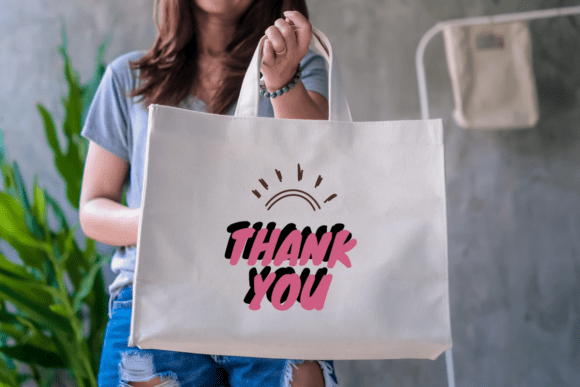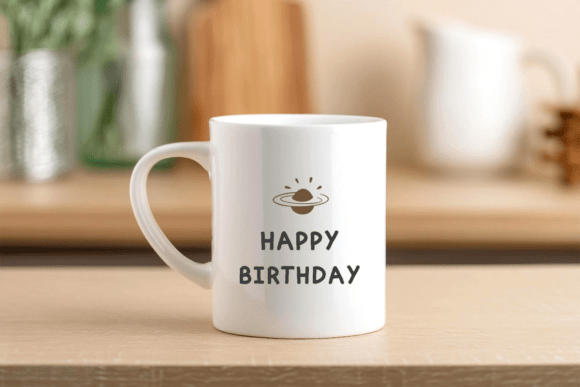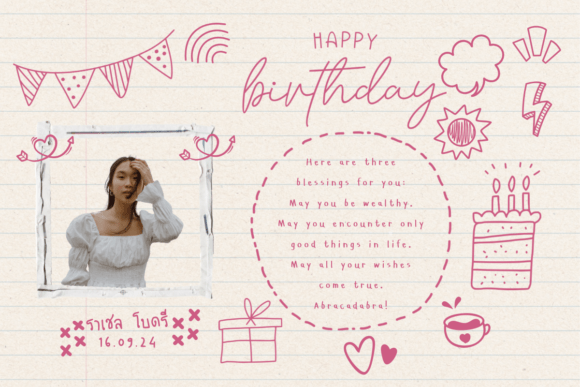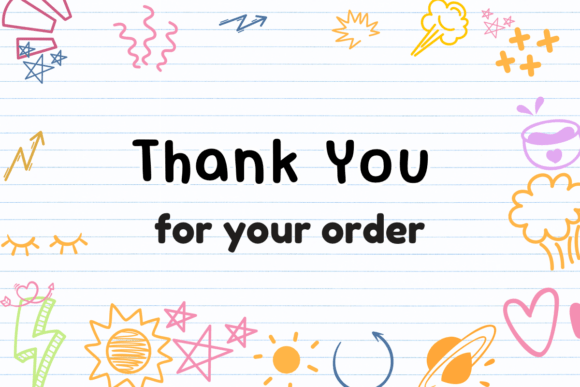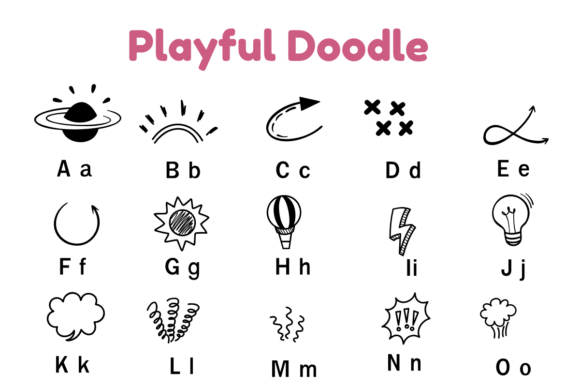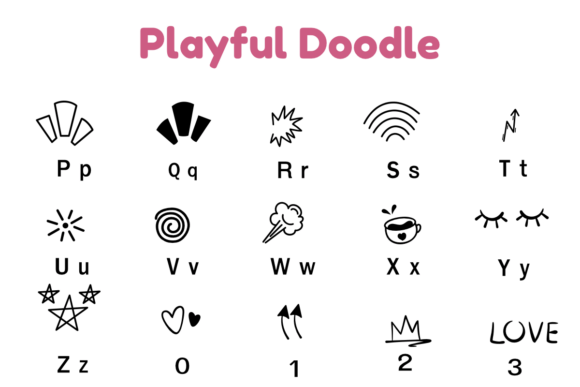
Introduction to Playful Doodle Font
Playful Doodle is a lovely dingbats font.
Key Features of Playful Doodle Font
Why Choose Playful Doodle Font?
Playful Doodle Font offers exceptional quality and versatility, making it a valuable addition to your design toolkit. Whether you’re creating for personal projects or commercial use, Playful Doodle Font delivers professional results.